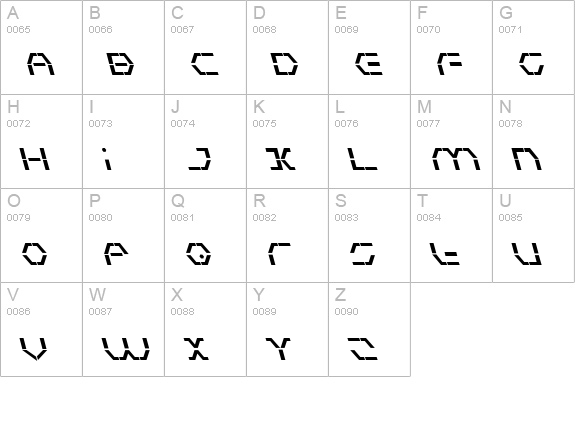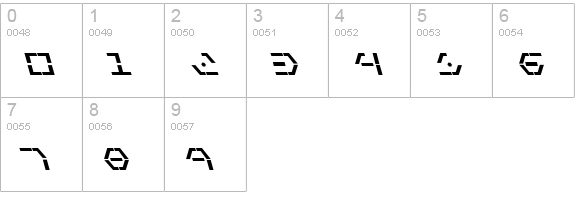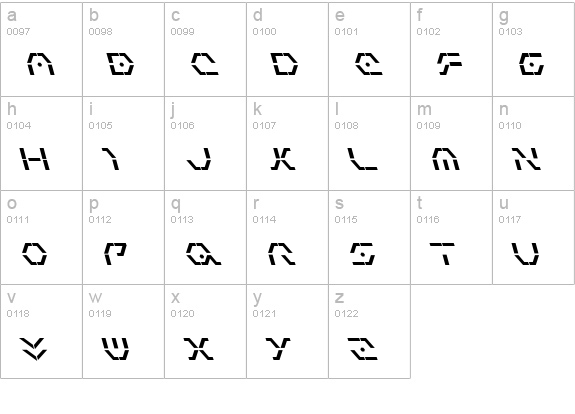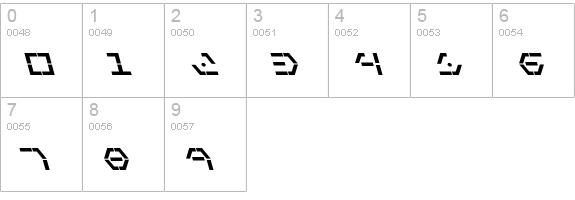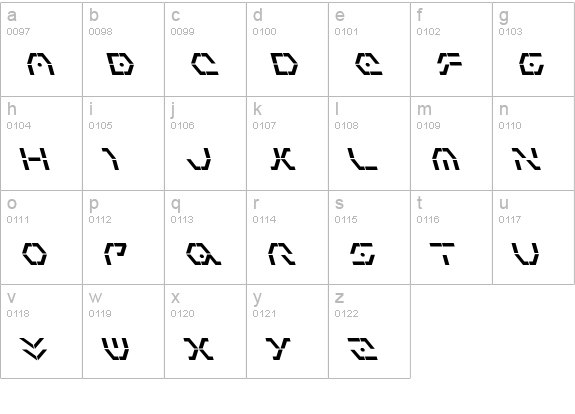
Zeta Sentry Bold Leftalic is a strong, high-contrast variant in the Zeta typeface family \xE2\x80\x94 well suited to headlines, attention-grabbing titles, and strong calls-to-action.
Zeta Sentry Bold Leftalic font is a striking and dynamic typeface that exudes a sense of modernity and sophistication. Its bold and italicized design makes it perfect for creating eye-catching headlines, titles, and branding materials. The sharp angles and sleek curves of this font give it a unique edge that will make your designs stand out. This font is available for free download at FontsMarket.com, allowing you to easily incorporate its bold and italic style into your projects without any cost. Whether you're working on a poster, logo, website, or any other design project, Zeta Sentry Bold Leftalic font will add a touch of elegance and flair. Download it today and elevate your designs with this versatile and stylish typeface.